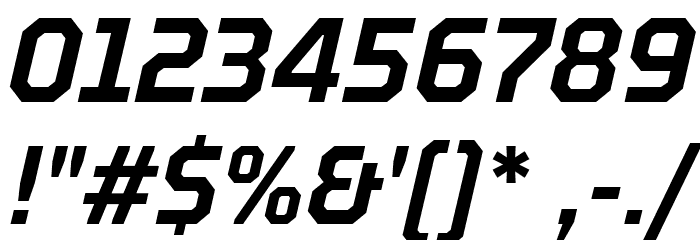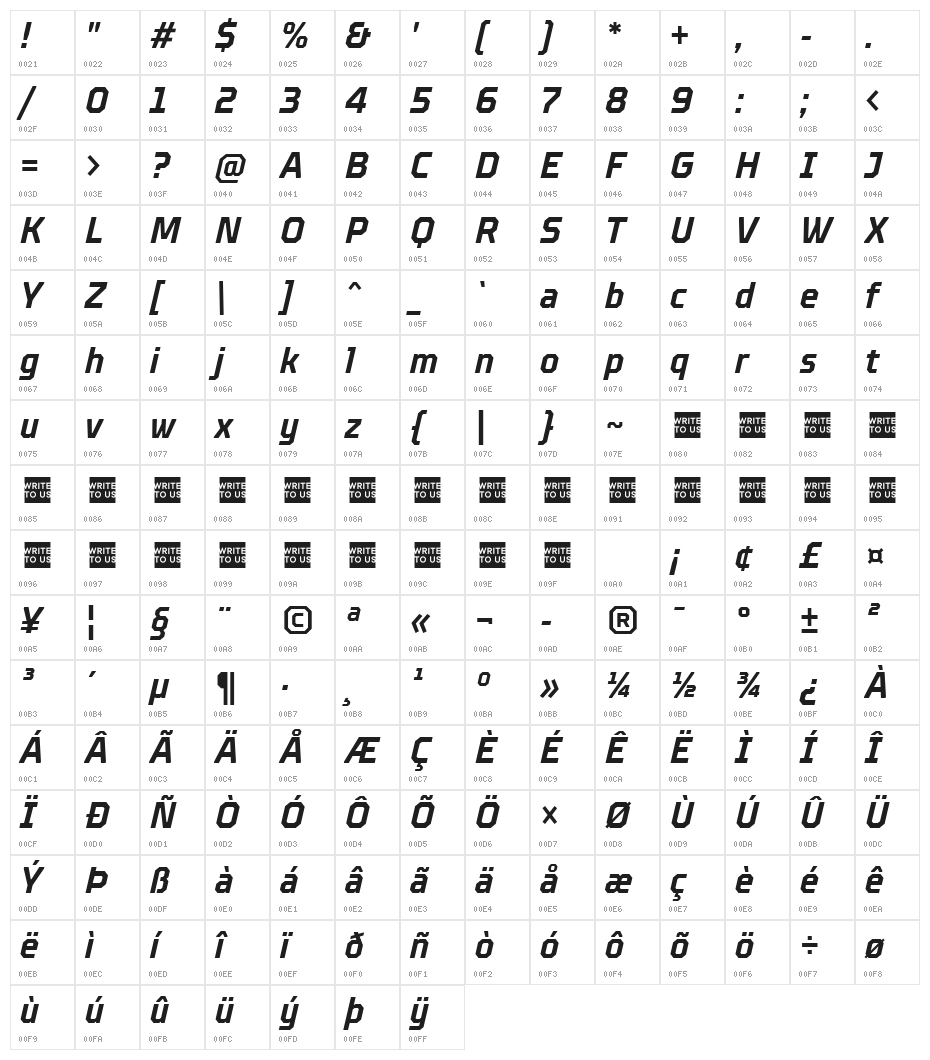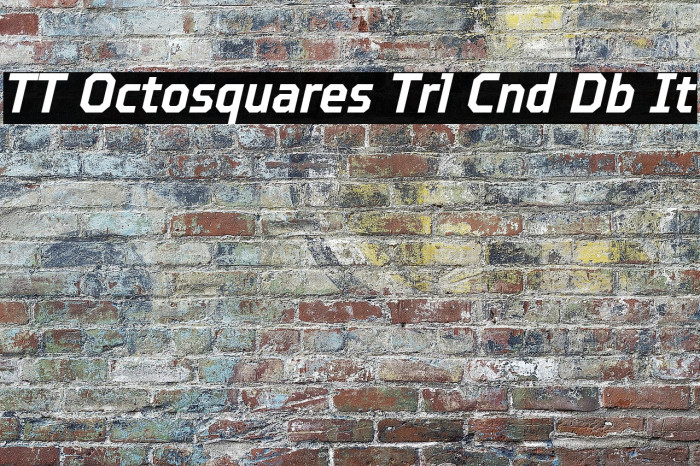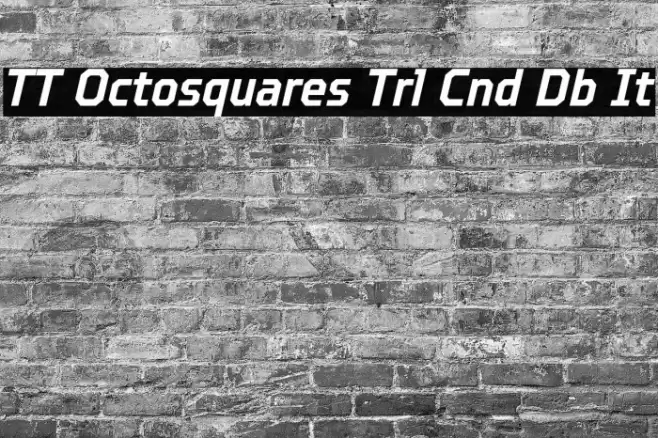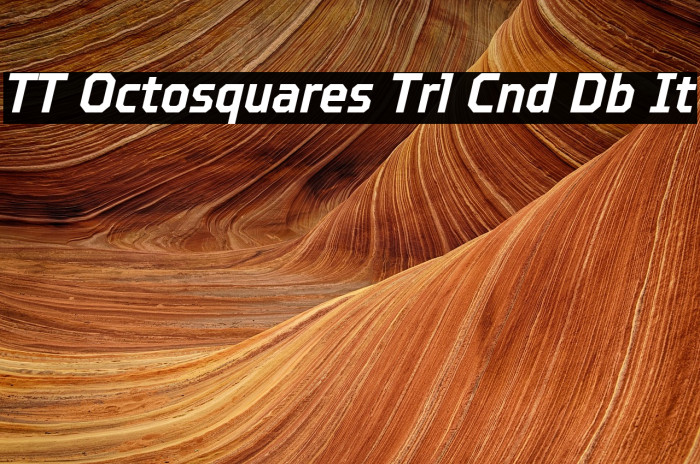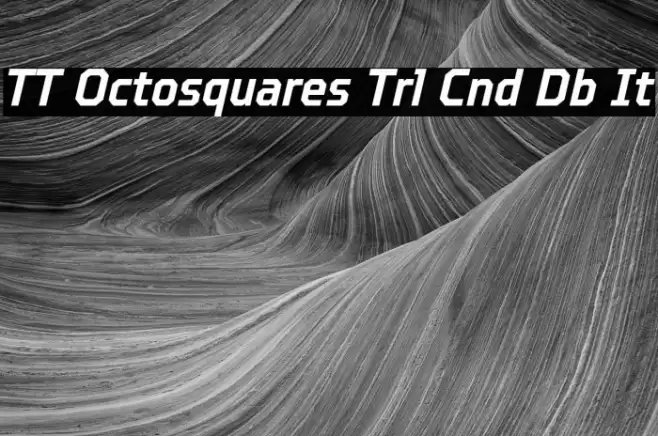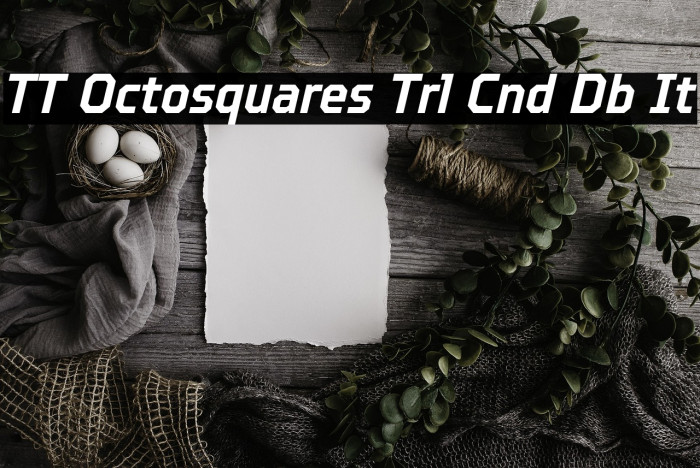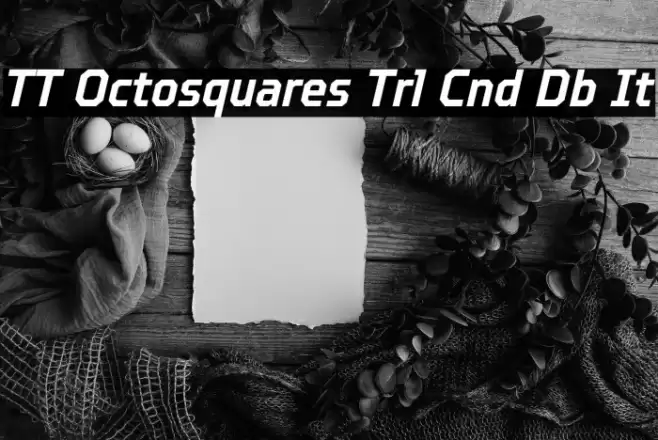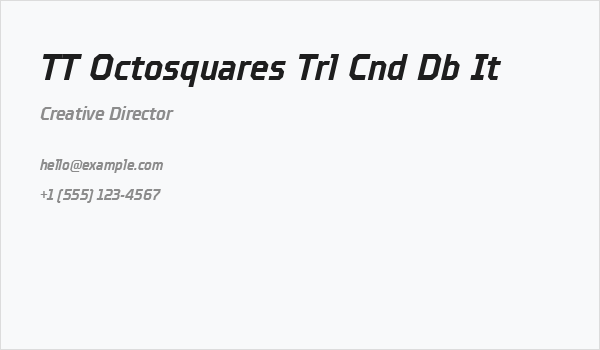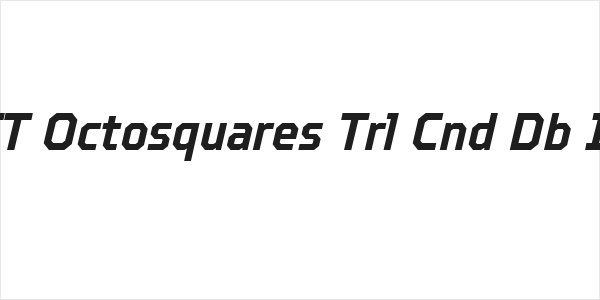
TT Octosquares Trl Cnd Db It Font
TT Octosquares Trl Cnd Db It Description
This font features a modern and geometric design with a distinct angular style. Each character is crafted with precision, showcasing sharp edges and a consistent slant that gives it a dynamic and forward-moving appearance. The uppercase and lowercase letters maintain a uniformity in their angular construction, while the numerals and special characters complement the overall aesthetic with similar geometric forms. The font's condensed width allows for efficient use of space, making it suitable for various design applications where a contemporary and edgy look is desired.
| Proposed Projects | Ideal for tech branding, futuristic posters, sports team logos, and modern editorial layouts. |